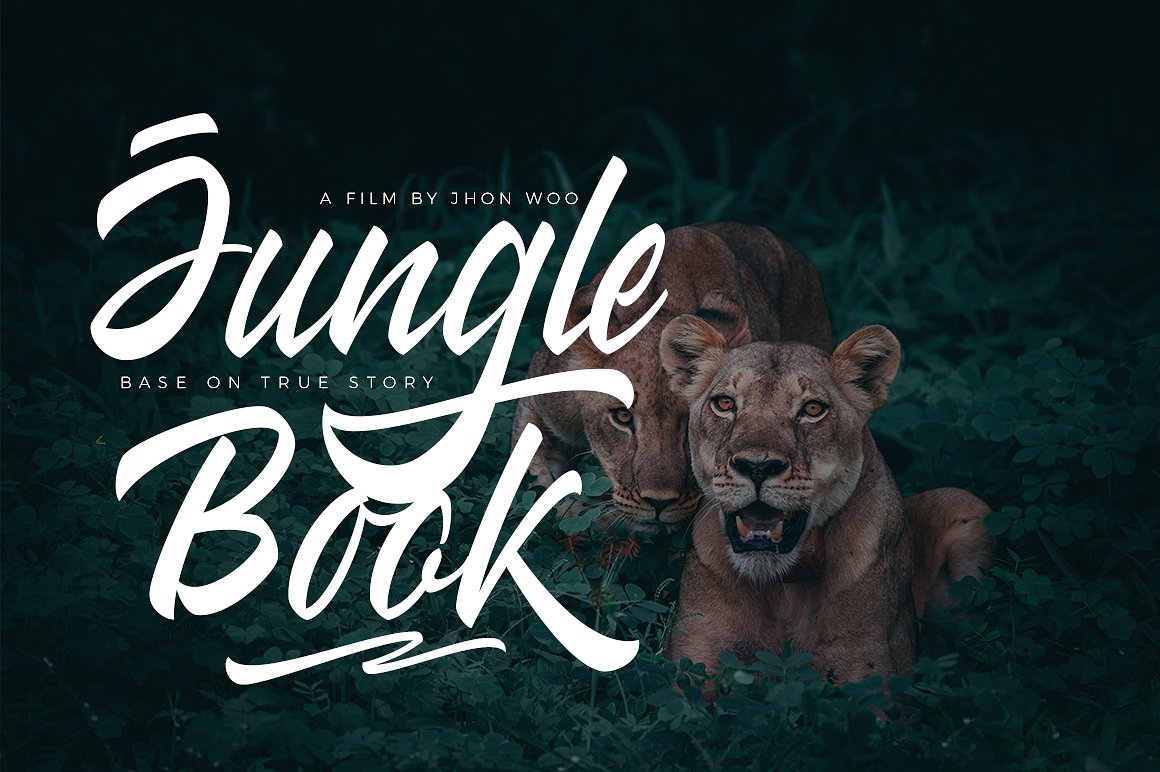
Wakanda Script Font Free Demo Continued is a design from Creatype Studio Co. Introducing Wakanda. Wakanda a stylish modern handletter script typeface. This font will looks awesome and amazing in many way to your latest project..You can download the best fonts, free fonts for personal or commercial use. With beautiful script type, professional sans serif font and more..Continued is a design from Creatype Studio Co. Introducing Wakanda. Wakanda a stylish modern handletter script typeface. This font will .Free Wakanda Script Font is a stylish modern hand letter script typeface. This font will looks awesome and amazing in many way to your .Visit Download PageFeaturing a free wakanda script font. This free typeface file was found from the amazing source called Pixelify. You can create a .Free Wakanda Script FontA is a stylish modern hand letter script typeface. This font will look awesome and amazing in many ways to your latest project..Free Wakanda Script Font is a stylish modern hand letter script typeface. This font will look awesome and amazing in many ways to your latest project..Download Wakanda Script Font today! We have a huge range of Script Font products available. Commercial License Included..